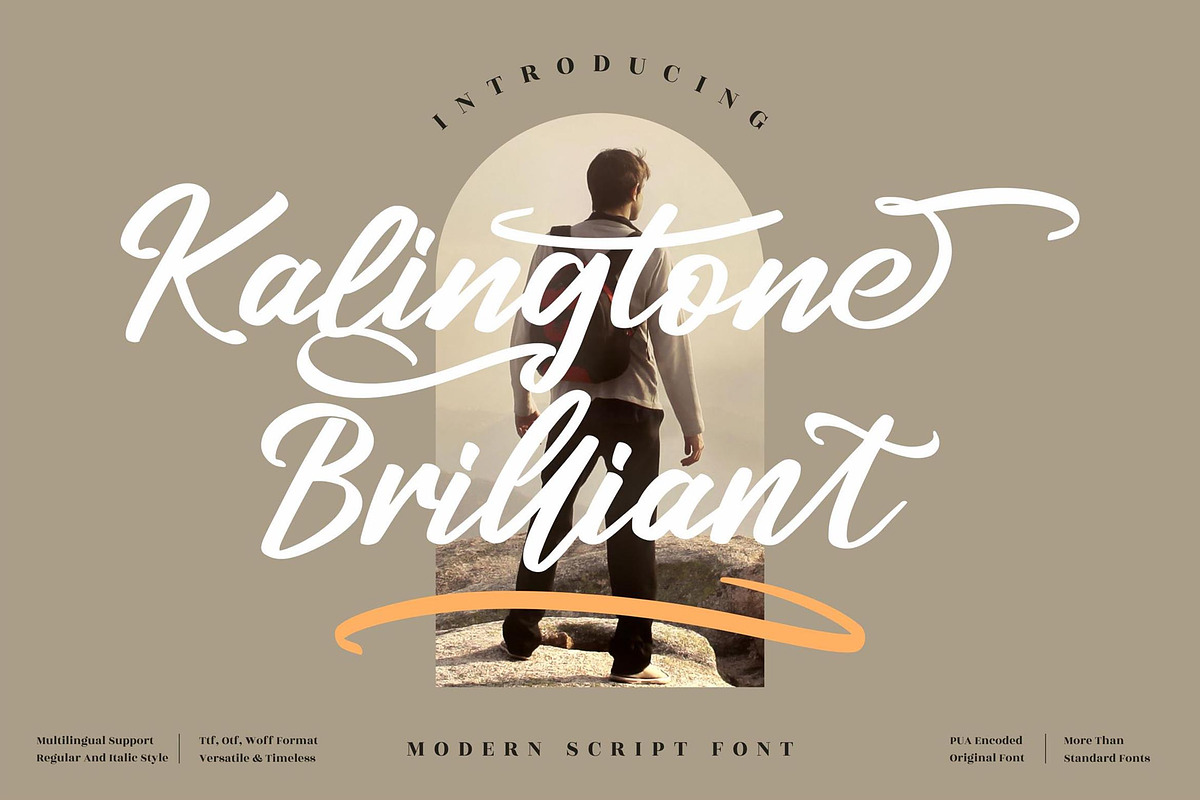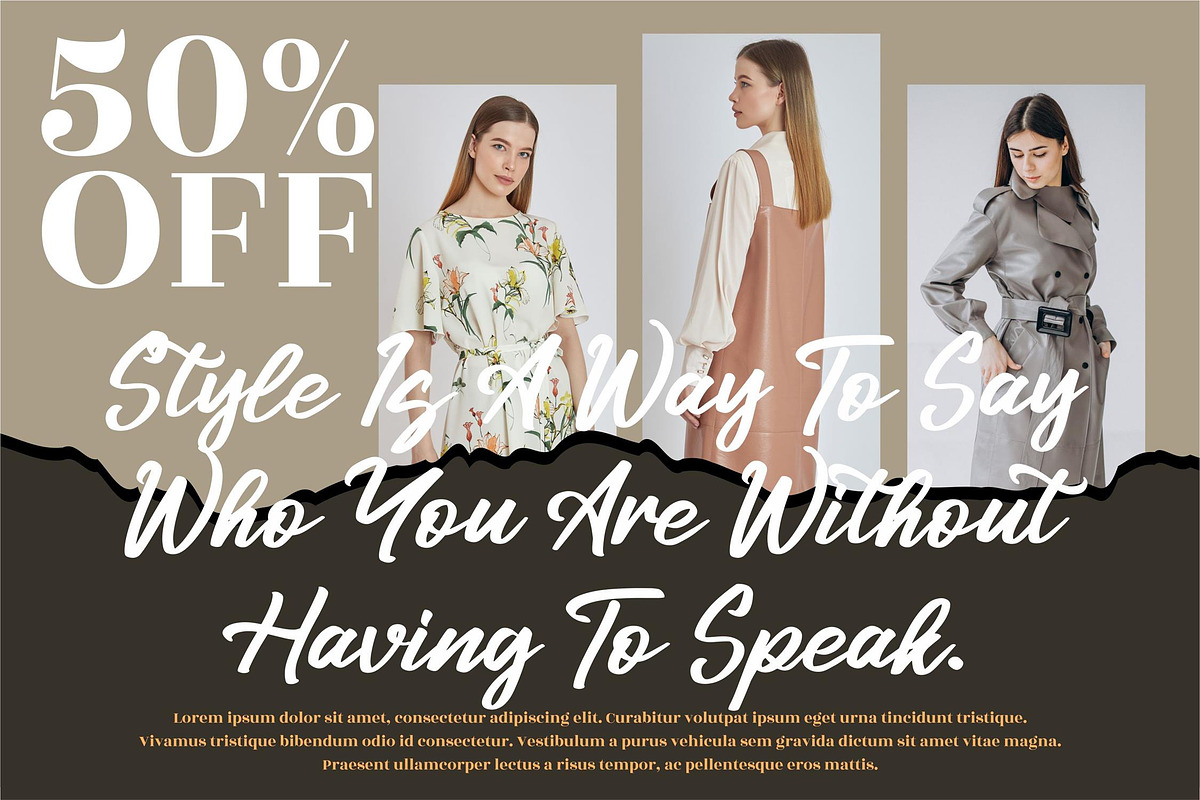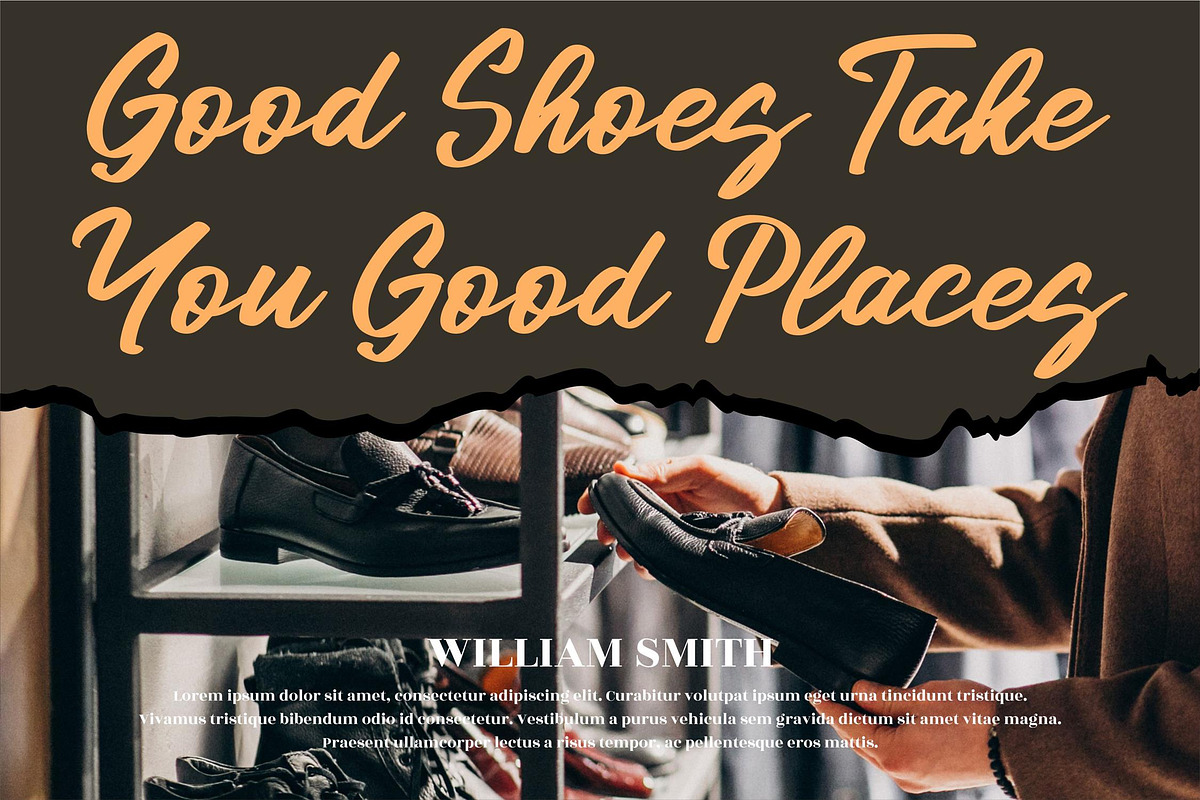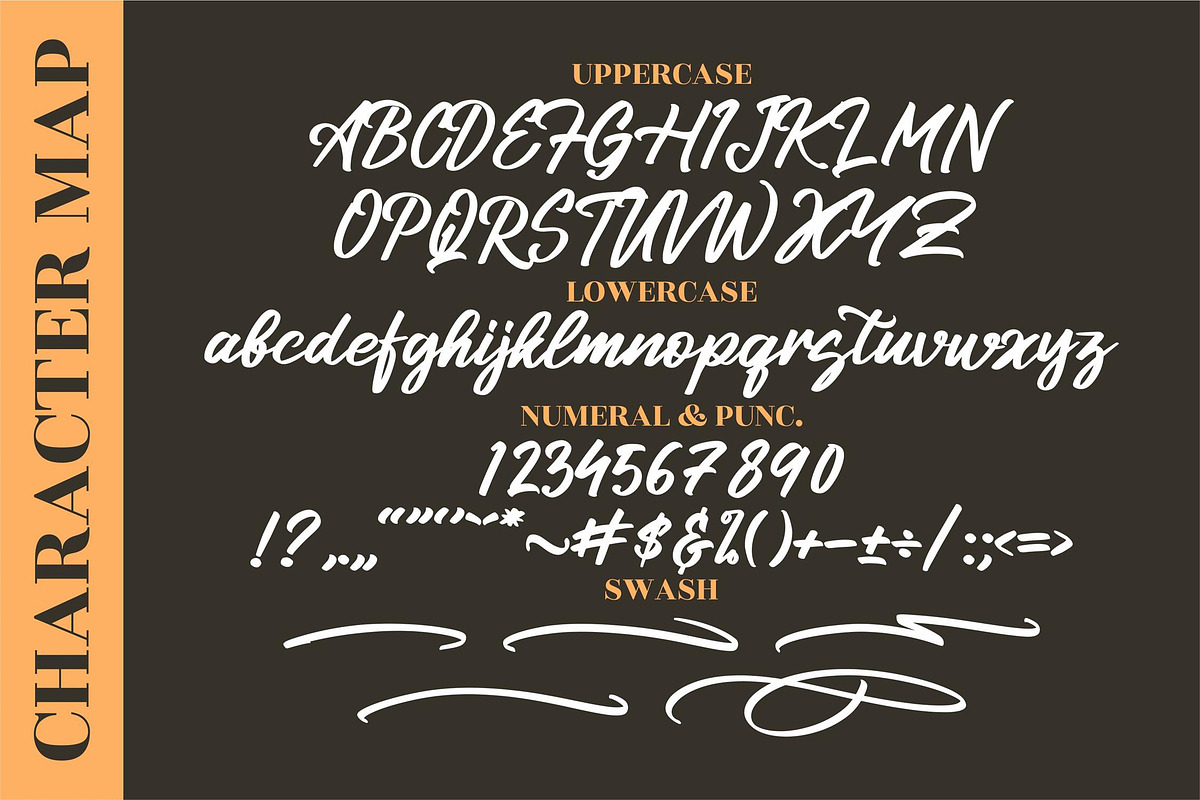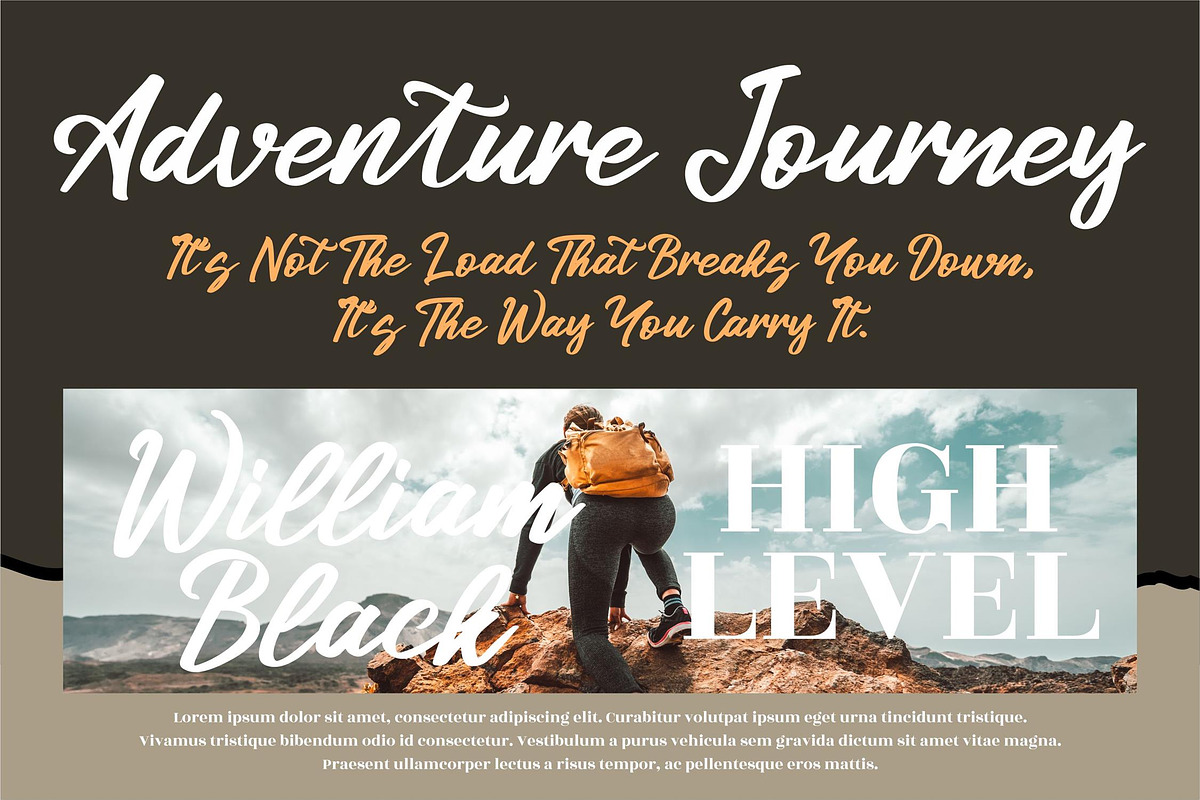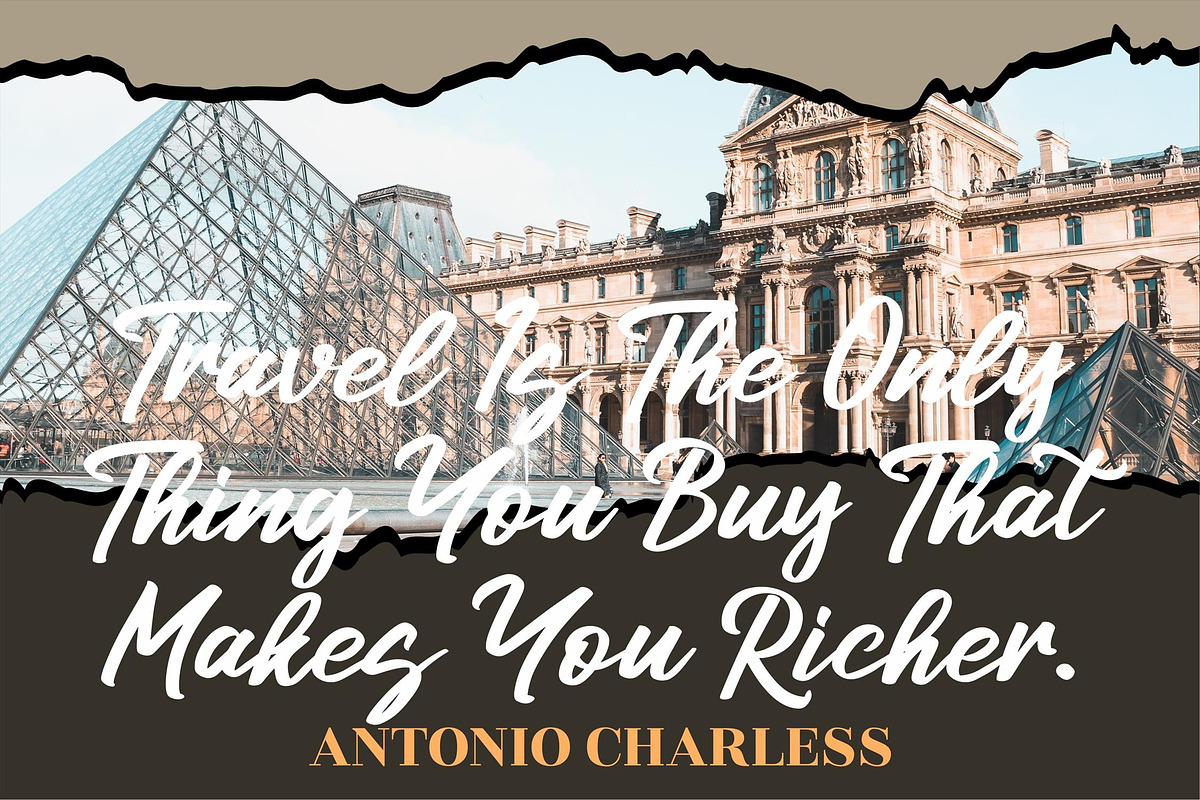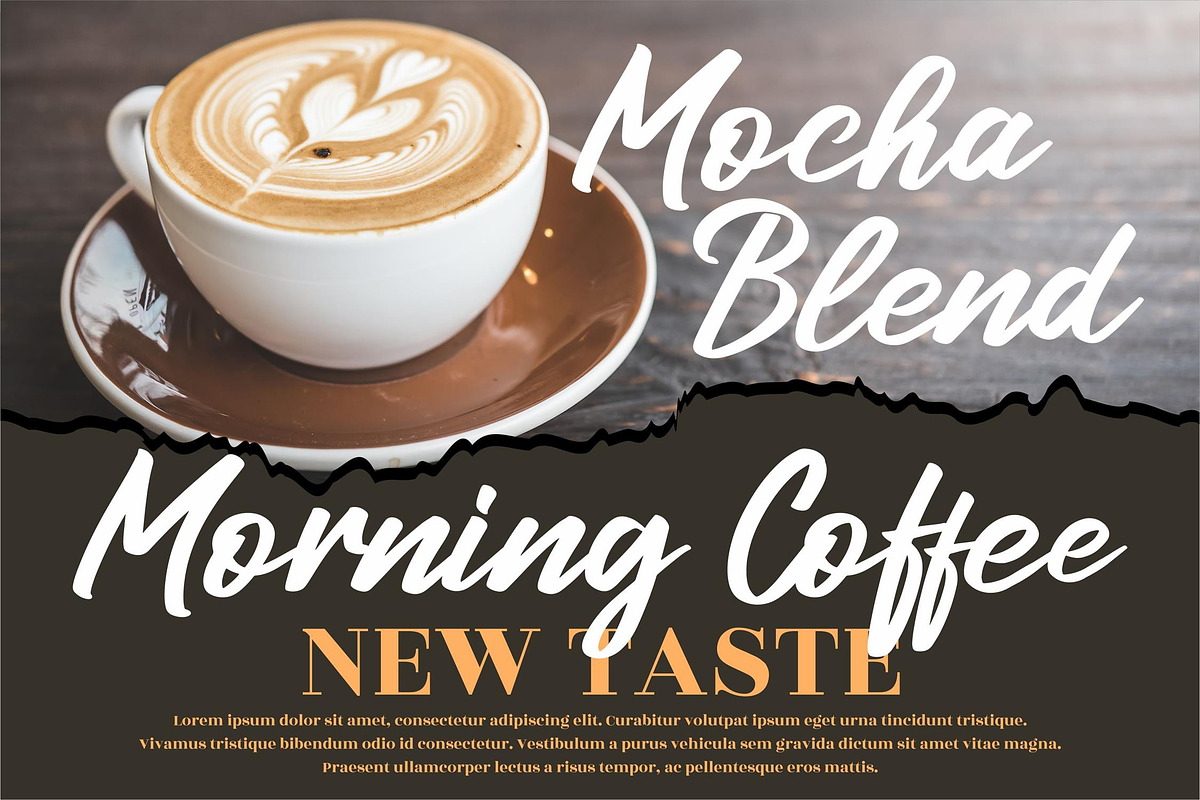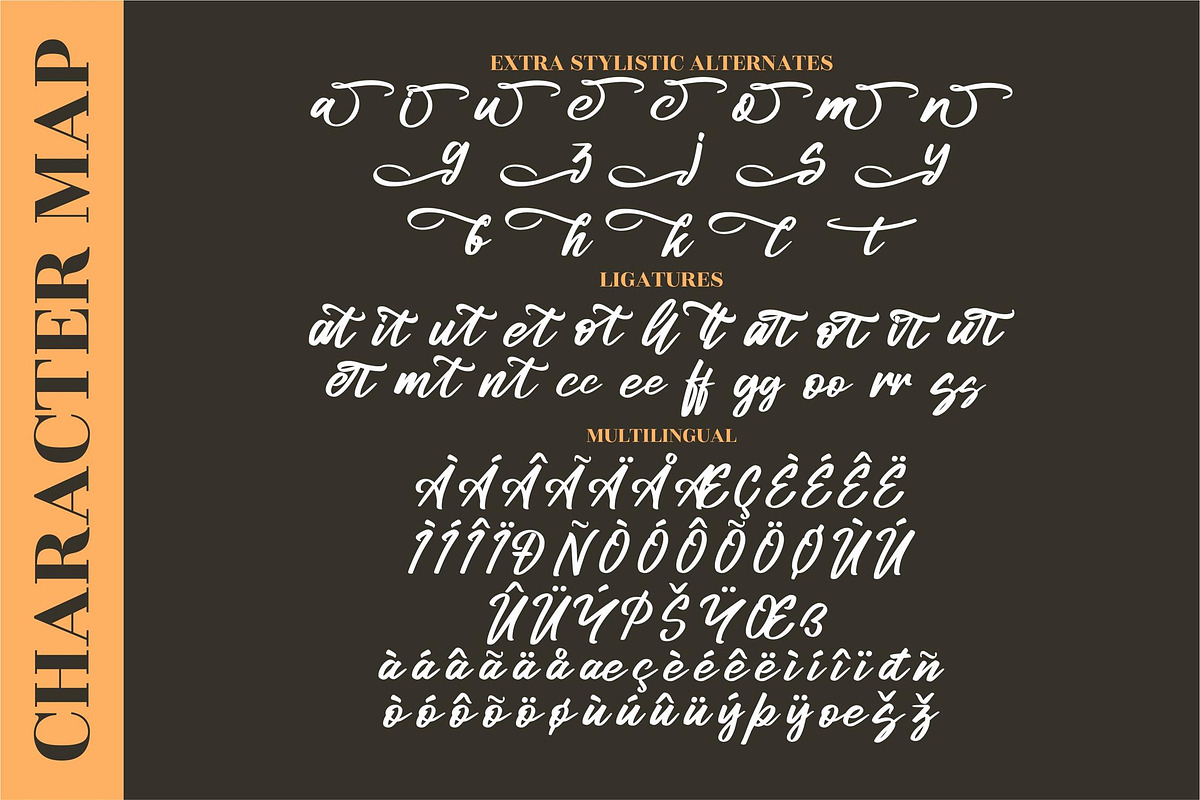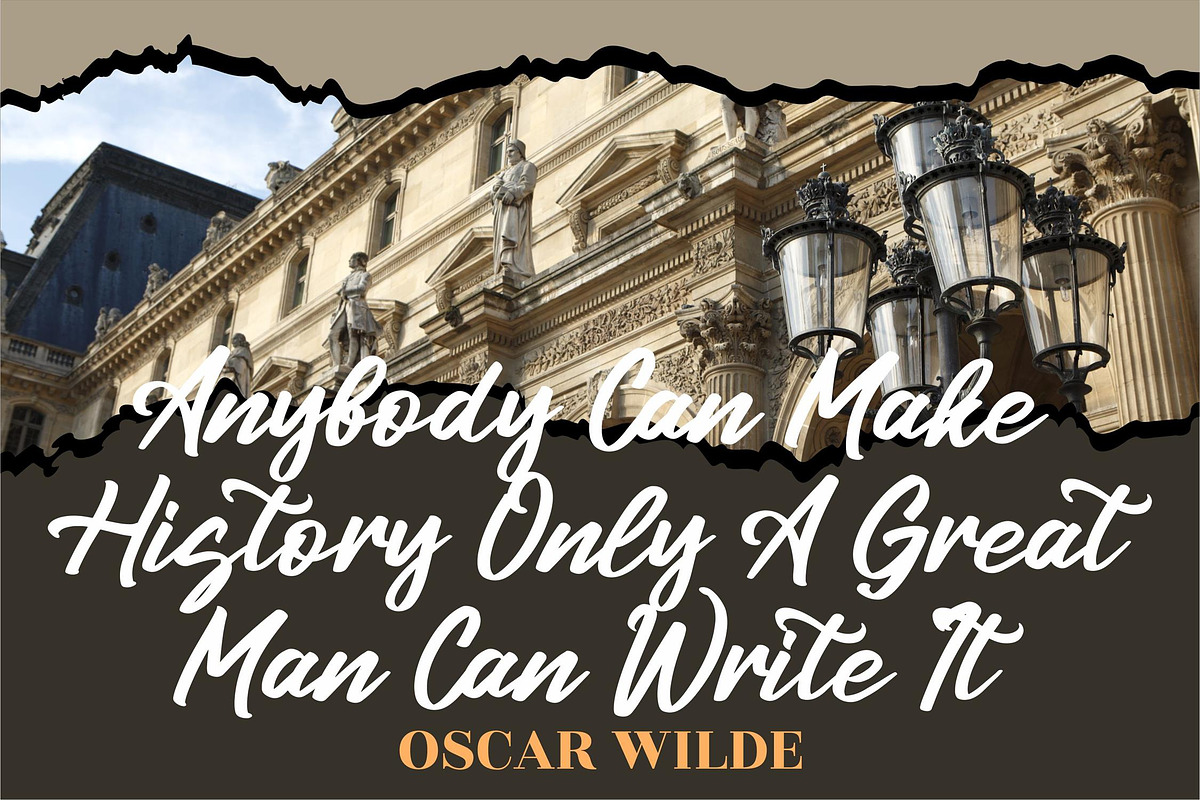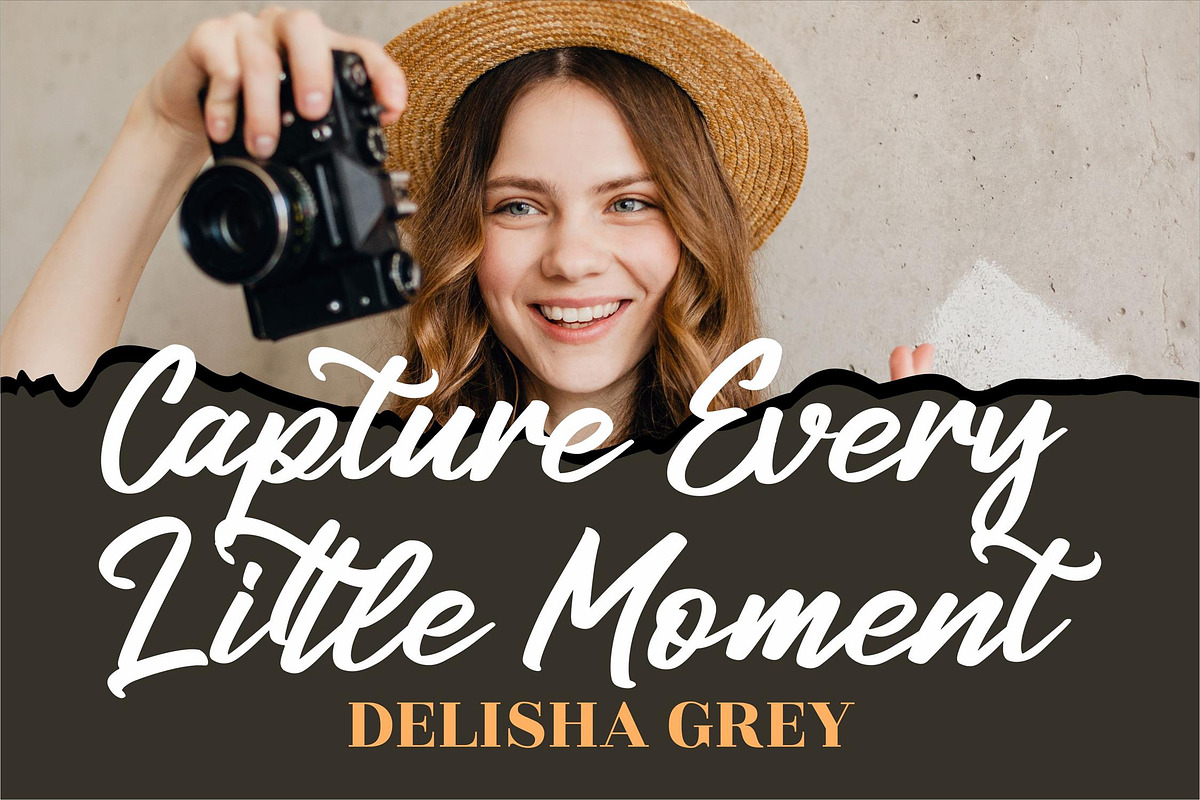
Kalingtone Brilliant Script LS
Hi ladies & gentlemen, this is one of our fonts suitable to complement your digital and printed creative products. This font is perfect for posters, social media posts, branding, personal projects, etc.